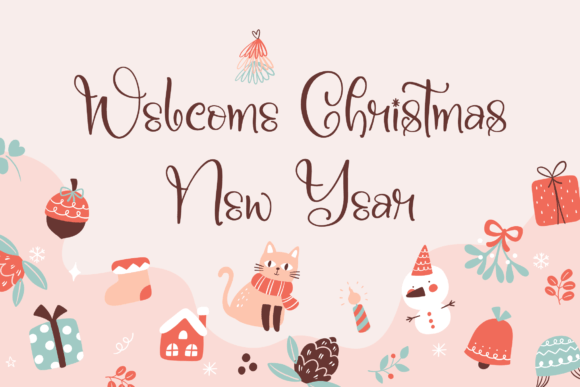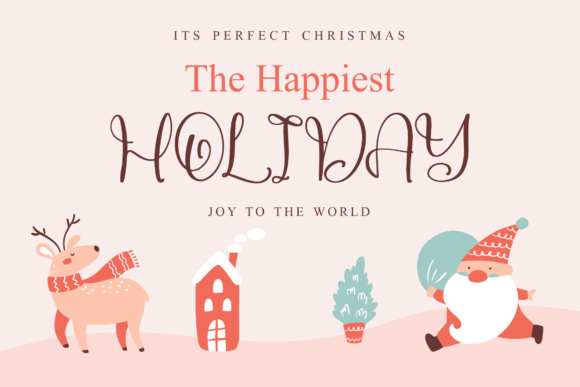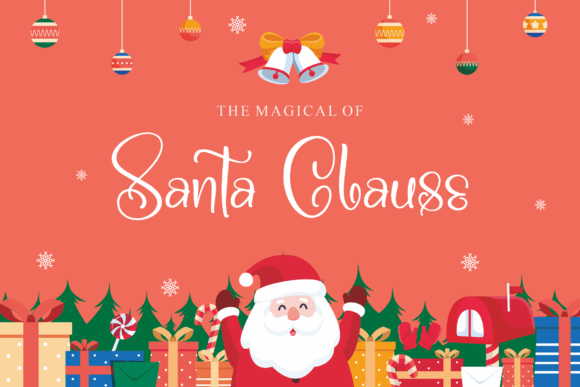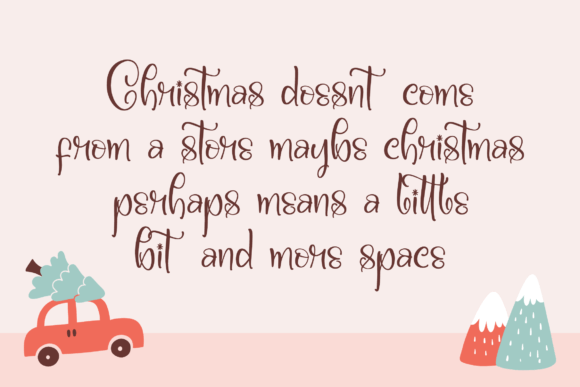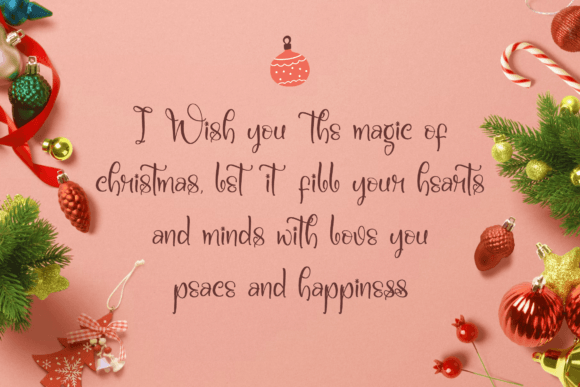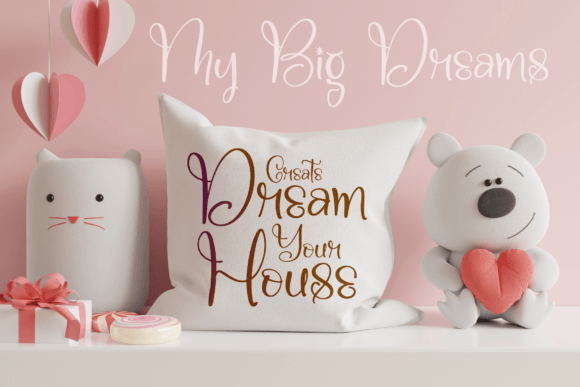
Introducing Christmas Eve Font: A Sweet and Adorable Handwritten Font
Are you looking for a font that can add a touch of magic to your designs? Look no further than Christmas Eve Font, a sweet and adorable handwritten font that is sure to become a valuable asset to your font library. With its charming and whimsical feel, this font is perfect for a variety of design projects, from holiday-themed creations to everyday crafts.
A Font that Brings Joy and Festivity
Christmas Eve Font is a beautifully crafted font that exudes a sense of joy and festivity. Its handwritten style gives it a personal and intimate feel, making it perfect for designs that require a touch of warmth and personality. Whether you’re creating holiday cards, gift tags, or social media graphics, this font is sure to bring a smile to your audience’s faces.
One of the best things about Christmas Eve Font is its versatility. It can be used for a wide range of design projects, from:
- Holiday-themed designs, such as Christmas cards, gift tags, and decorations
- Everyday crafts, such as journaling, scrapbooking, and DIY projects
- Social media graphics, such as Facebook posts, Instagram stories, and Twitter headers
- Branding and packaging, such as logos, labels, and product packaging
Whatever the topic or project, Christmas Eve Font is sure to enhance your creation and add a touch of personality.
Key Features of Christmas Eve Font
So, what makes Christmas Eve Font so special? Here are some of its key features:
- Handwritten style with a personal and intimate feel
- Sweet and adorable aesthetic that’s perfect for holiday-themed designs
- Versatile and can be used for a wide range of design projects
- Easy to read and understand, making it perfect for body text and headlines
Tips for Using Christmas Eve Font
Here are some tips for using Christmas Eve Font in your designs:
- Use it as a headline font to add a touch of personality to your design
- Pair it with a sans-serif font for a modern and elegant look
- Use it to create custom illustrations, such as hand-drawn quotes and phrases
In conclusion, Christmas Eve Font is a sweet and adorable handwritten font that is sure to become a valuable asset to your font library. With its charming and whimsical feel, it’s perfect for a variety of design projects, from holiday-themed creations to everyday crafts. Whether you’re a designer, crafter, or DIY enthusiast, this font is sure to bring joy and festivity to your designs. So why wait? Download Christmas Eve Font today and start creating your own magical designs!